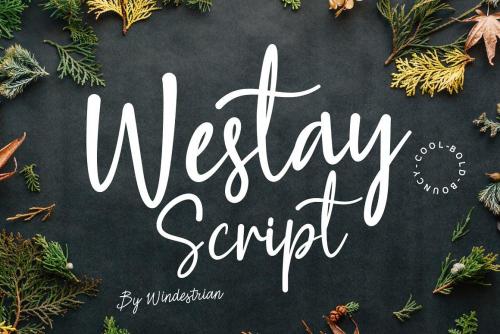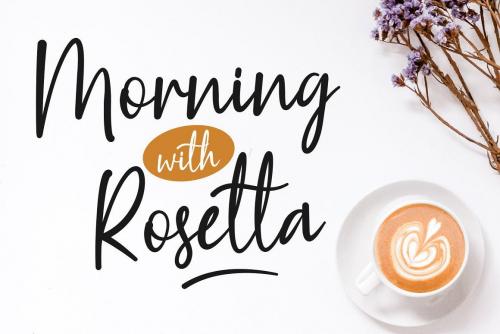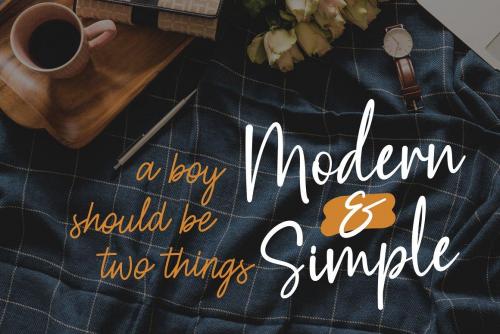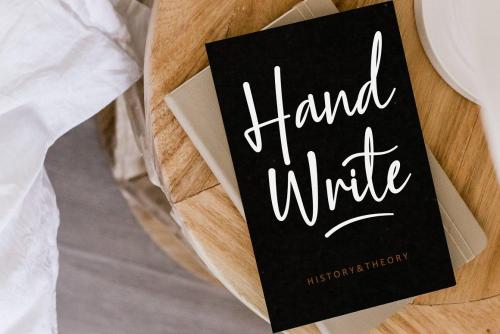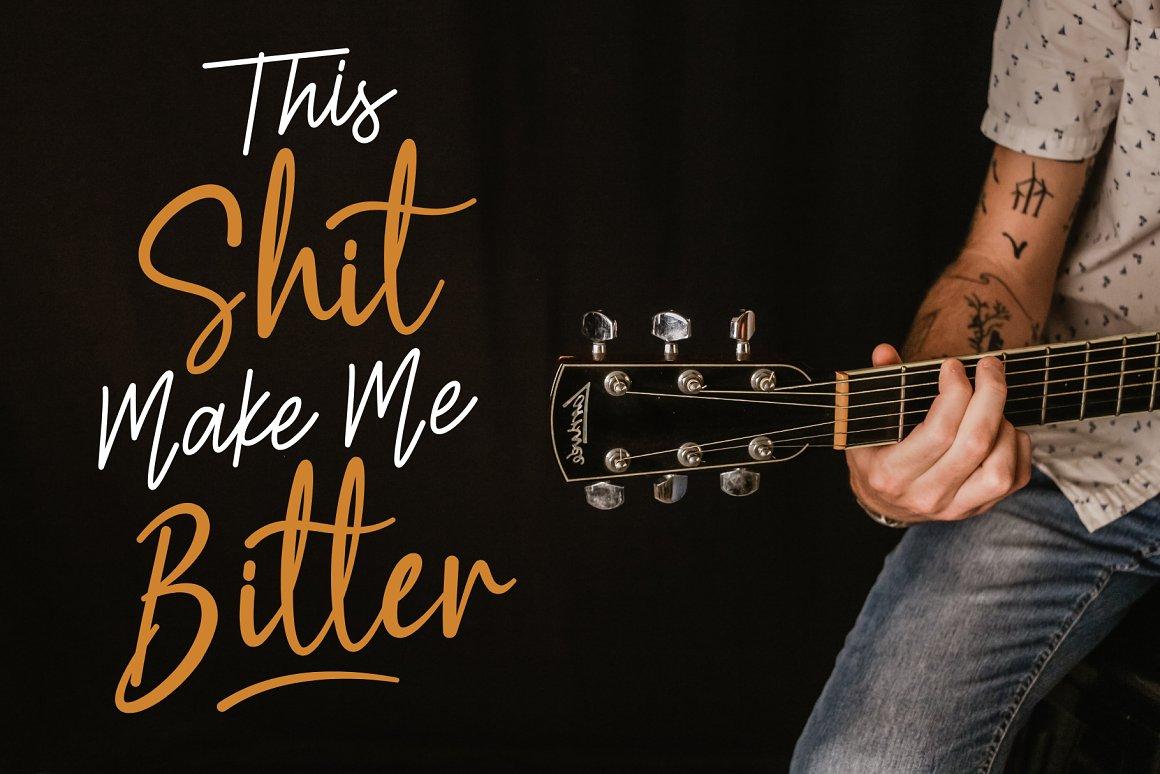
Westay Bold Script Font
Westay Bold Script Font is unique, bold, simple, bouncy and cool. It can be incorporated into many designs including quotes text, wedding invitations, posters and you can create custom cards to give to your friends and family.
Good for Logos, Titles, Tees Design or Indie flyer and Poster.